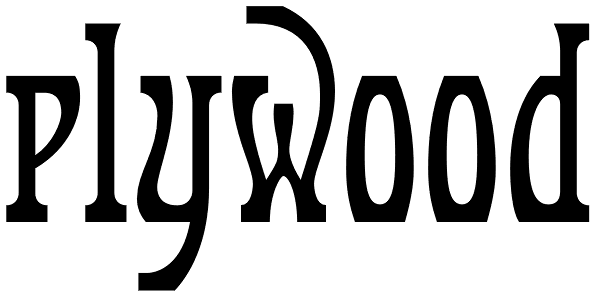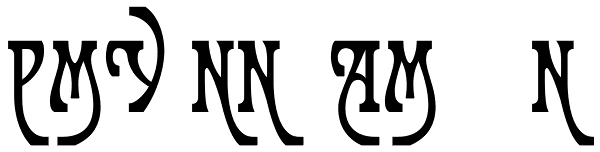
Plywood
Plywood is based on a long lost American film classic: Franklin Typefounders's Barker Flare from the early 1970s. Plywood is a surprisingly effective mix between the rigid confidence of nineteenth century wood types and the smooth feminine curves of...
Plywood
Plywood Alt Two
Plywood Alt One